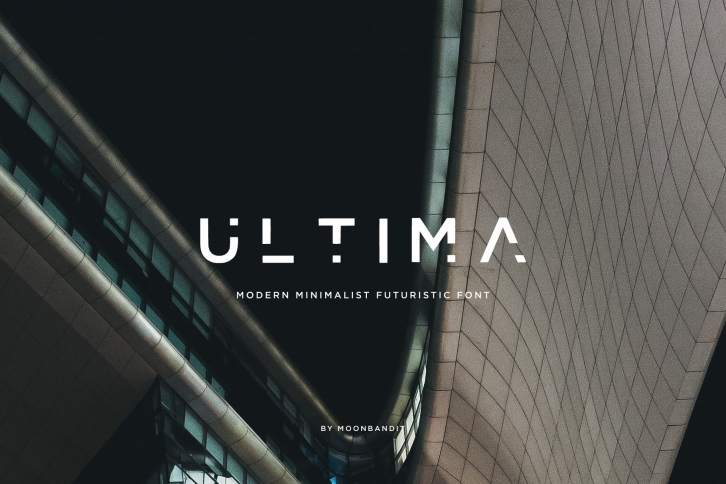
ULTIMA is a great font that was designed by MoonBandit. Imagine the amount of combinations you can create using this font! The archive is 6.9 MB and it was released on June 30, 2020. ULTIMA looks beautiful on wedding invitations, greeting cards, logos, posters, labels, t-shirt designs, logos, business cards and is perfect for use in ink or watercolor works, fashion, magazines, packaging and food menus, children's books and more!